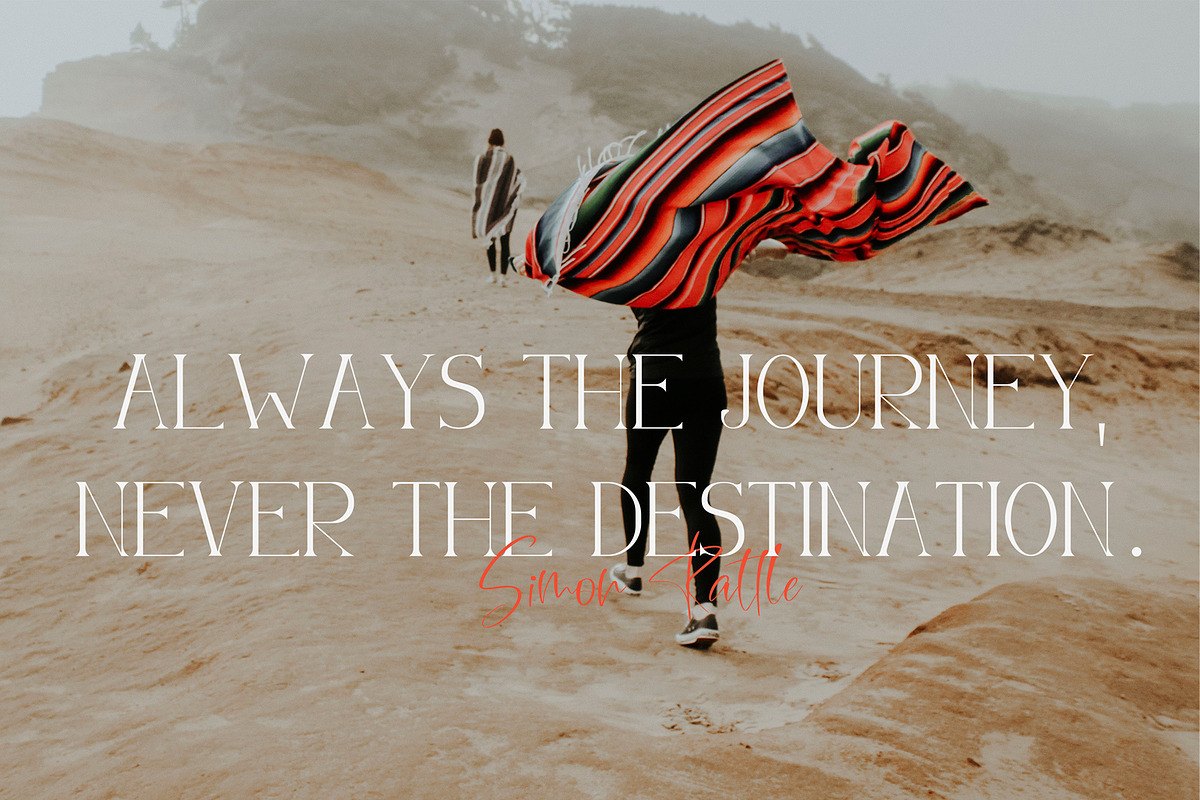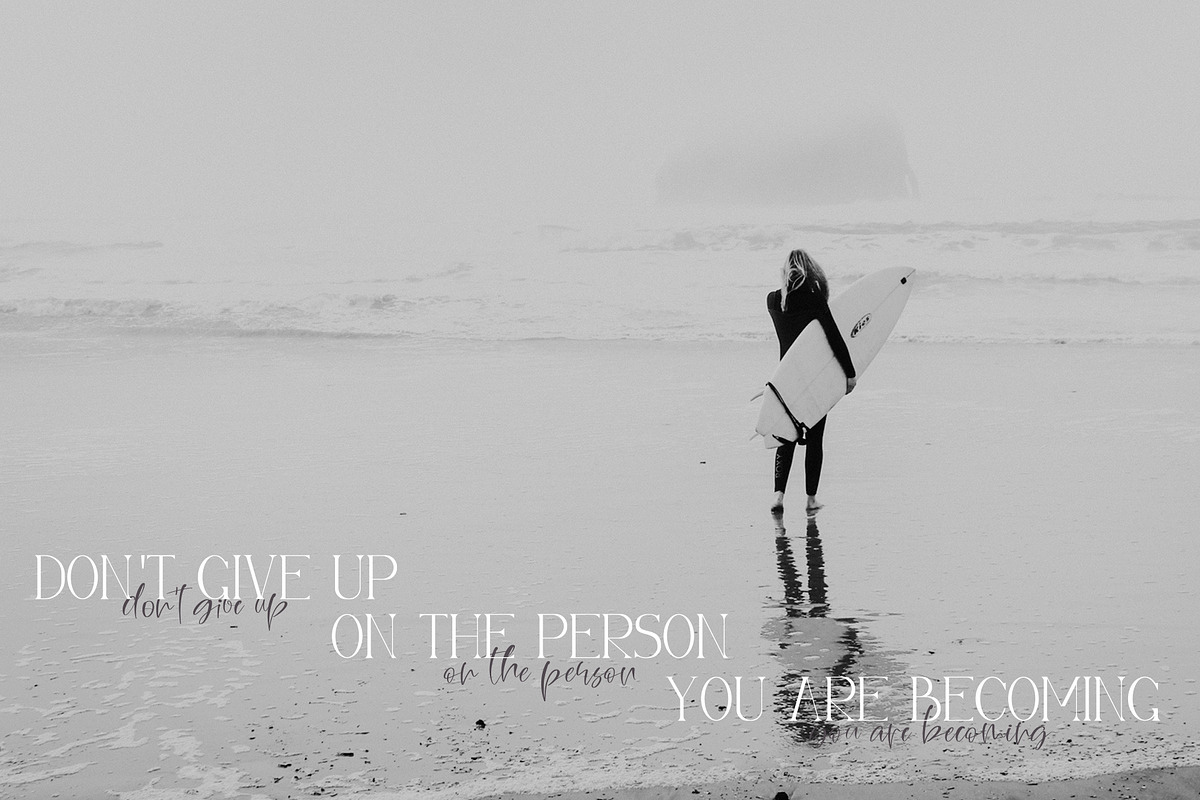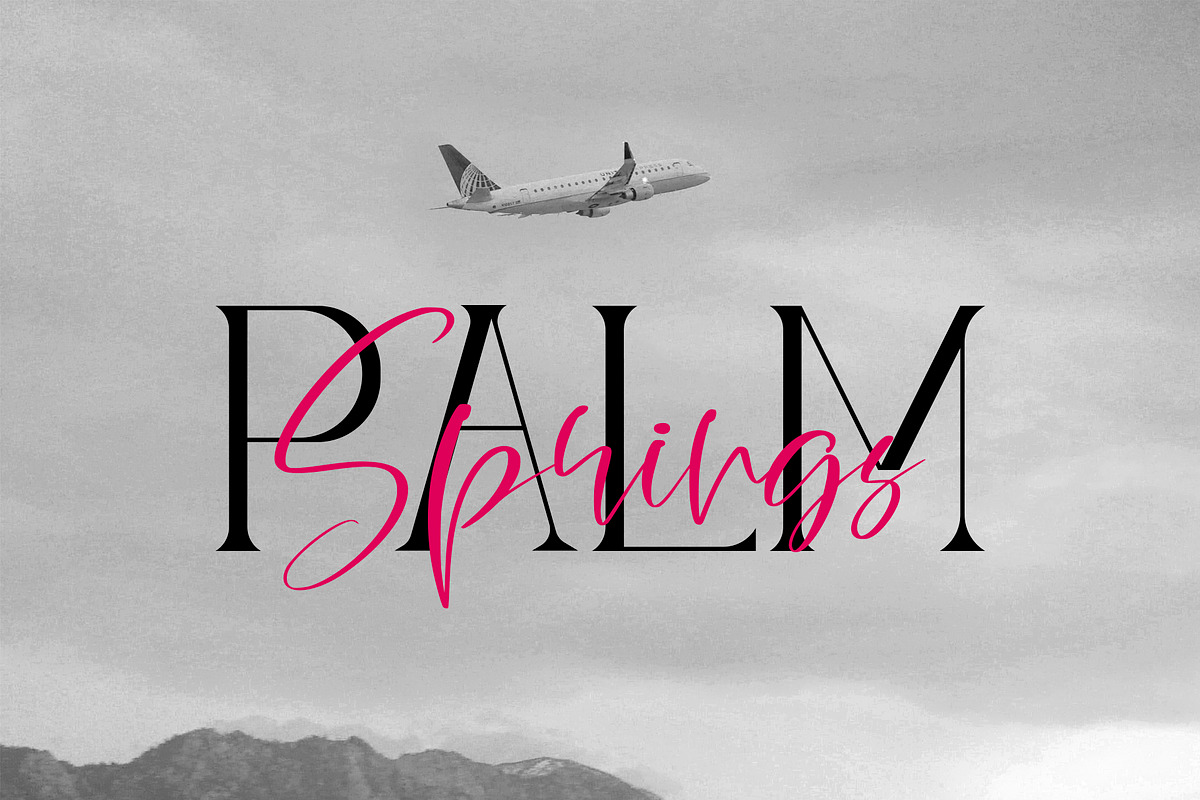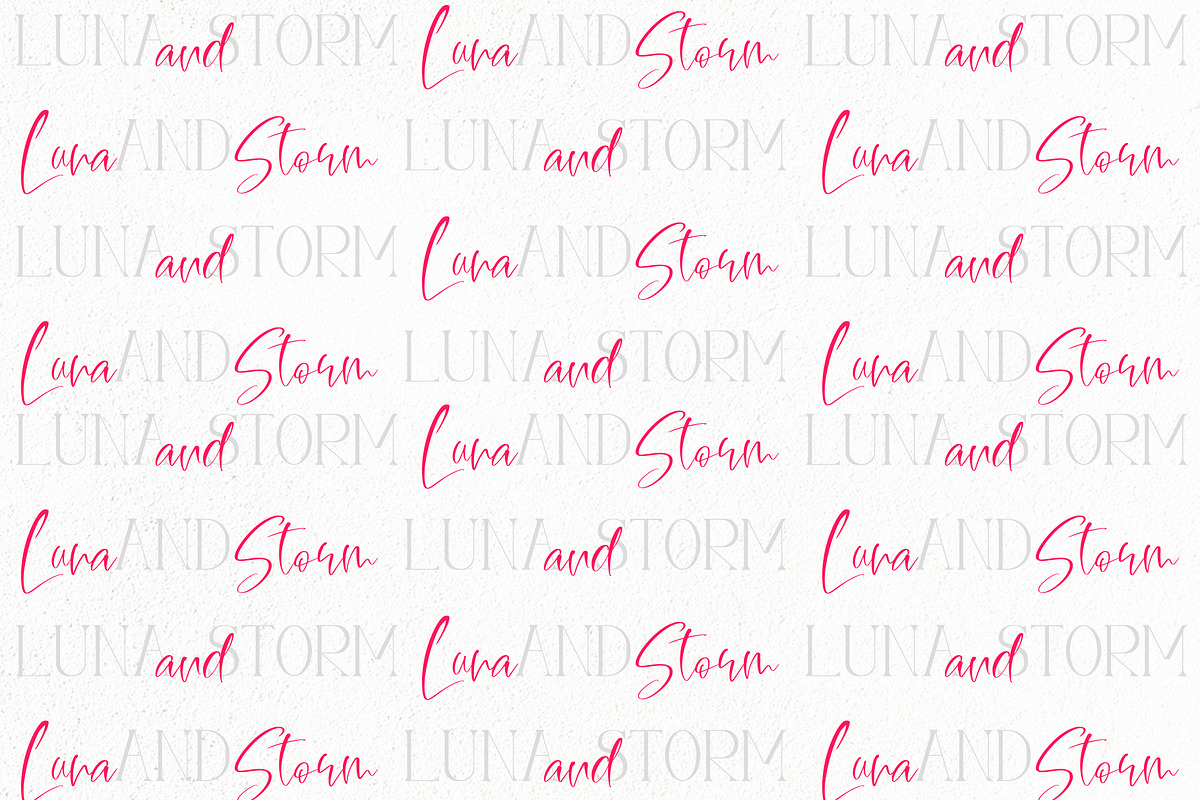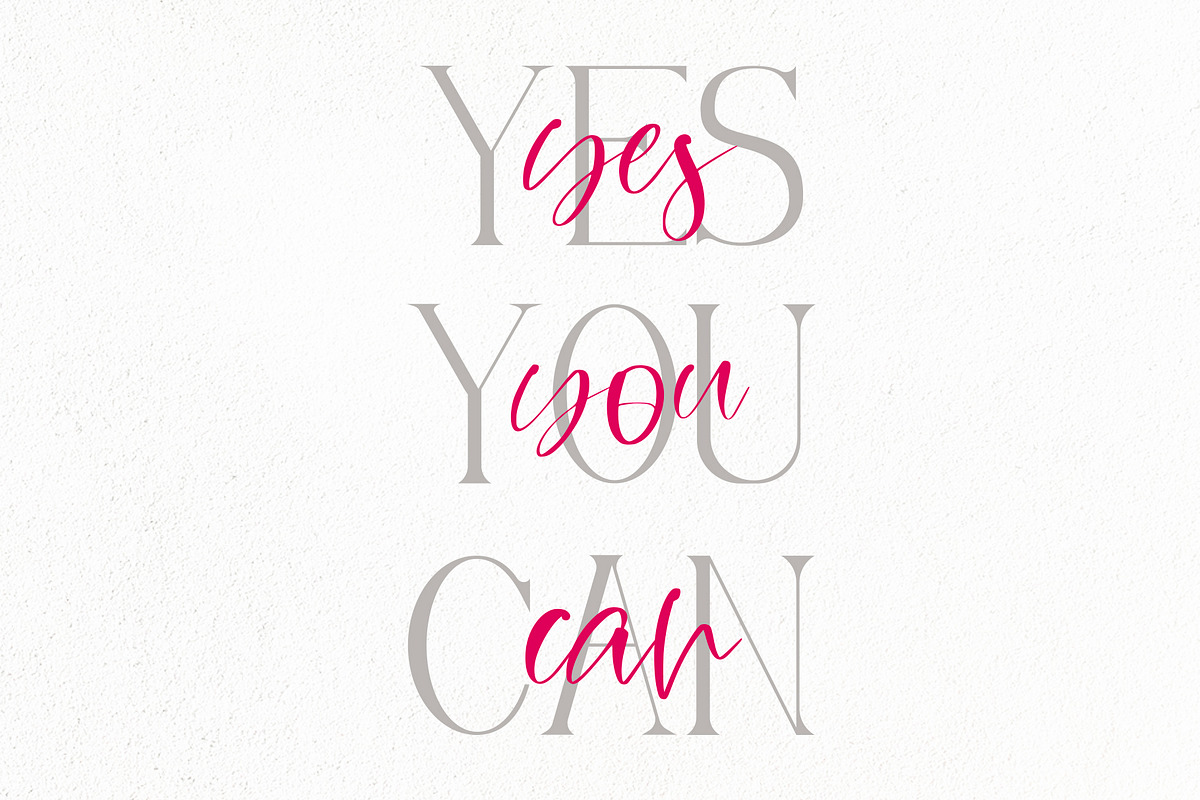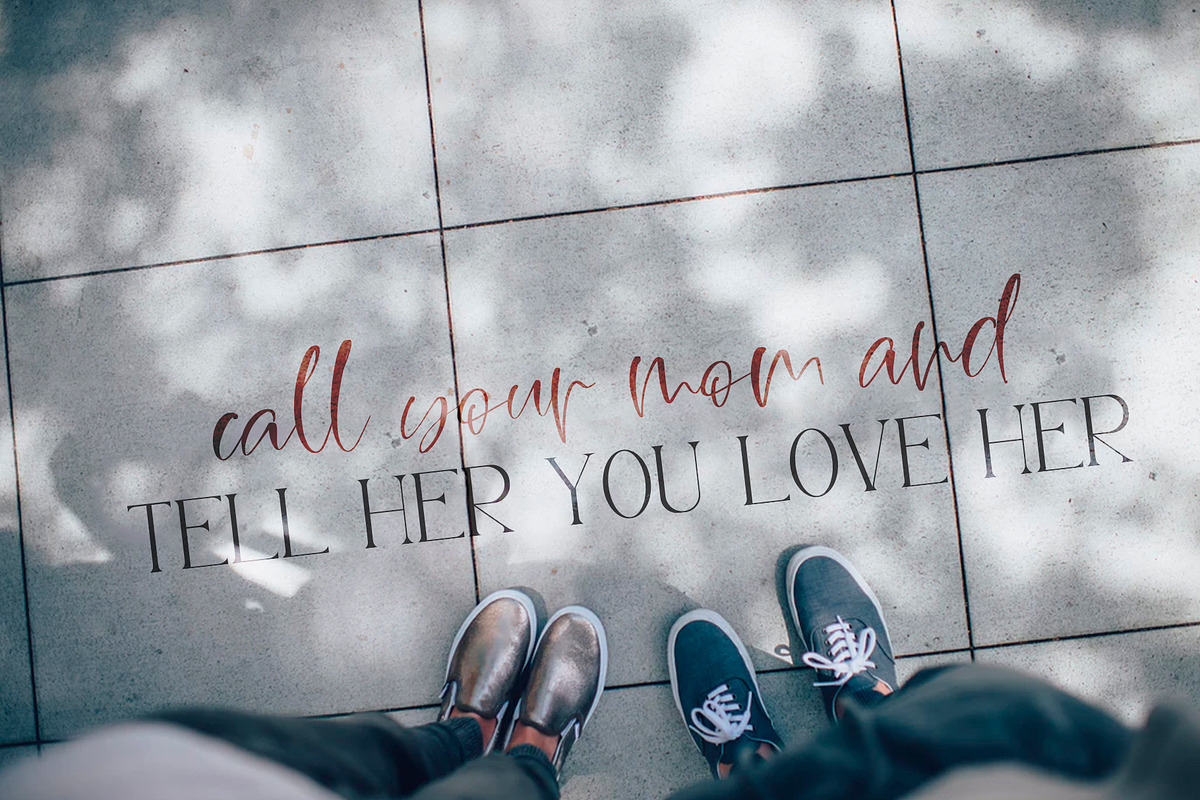
Belem Font Duo
Belem Font Duo - it's a modern font duo
Why Belem Font Duo is worth a look
Belem Font Duo by CallMeStasia fits naturally into Branding, posters, packaging, typography.